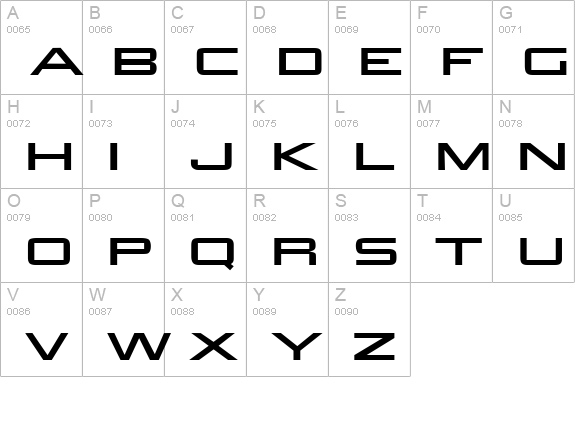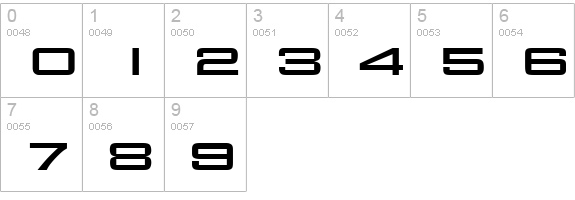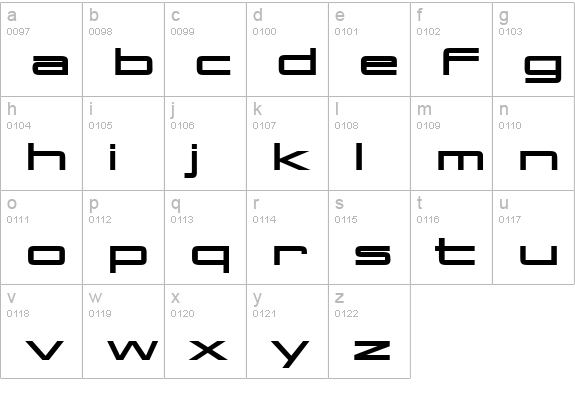
AggieURWTNor Font Details
AggieURWTNor font is a modern and elegant typeface perfect for a wide range of design projects. Its sleek lines and stylish curves give it a sophisticated and classy look that can elevate any design. Whether you're creating branding materials, invitations, posters, or any other project, AggieURWTNor font is sure to make a statement. The best part is that AggieURWTNor font is completely free to download at FontsMarket.com. You can easily access this versatile font and use it in your projects without any cost. With its timeless appeal and professional design, AggieURWTNor font is a must-have addition to your font collection. Download it today and add a touch of elegance to your designs!